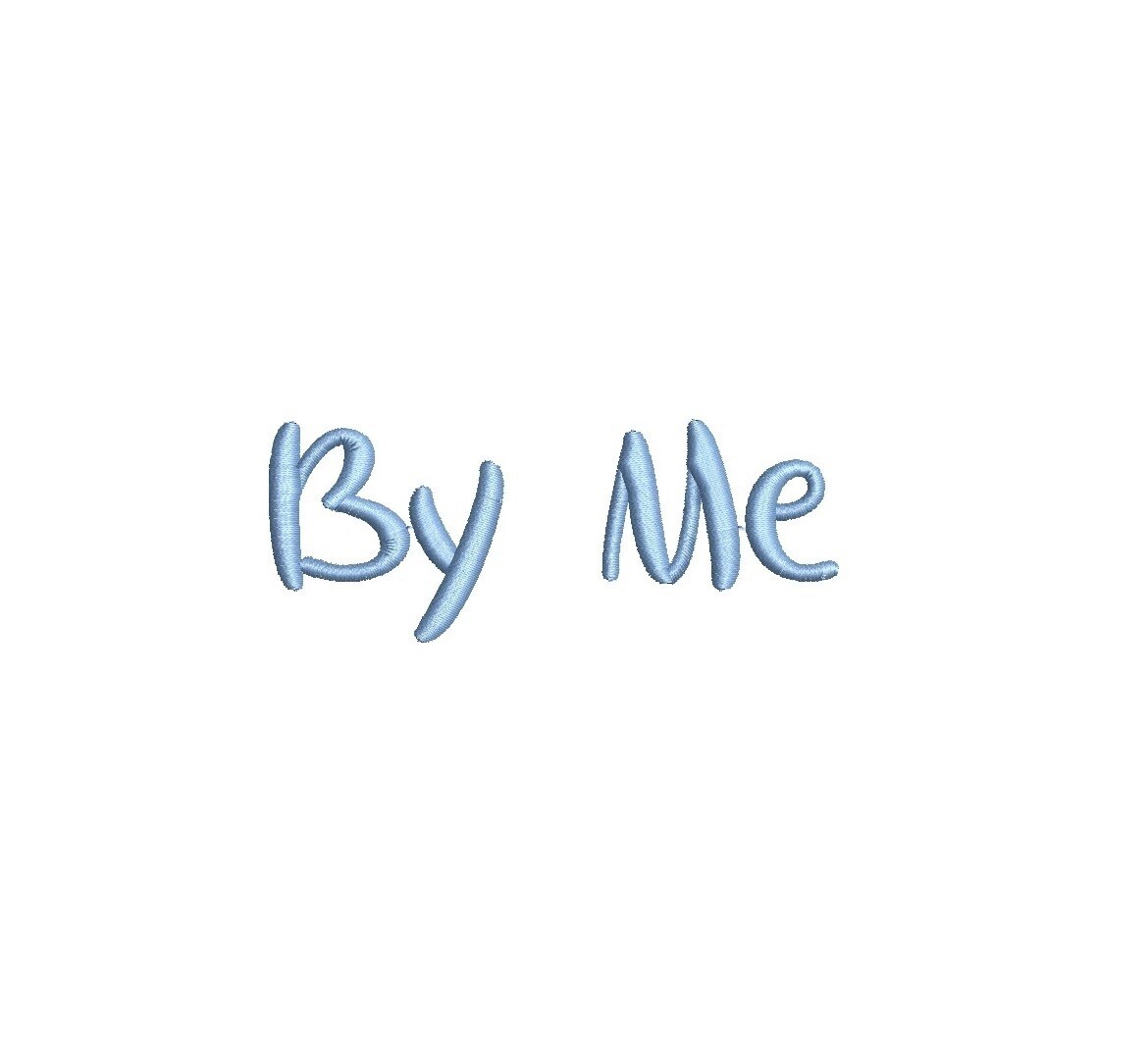
Discover the perfect balance of elegance and versatility with By Me Regular ESA font. This captivating typeface is a seamless fit for your design projects, ensuring compatibility with Wilcom Studio e4.5.6 and Hatch 3 versions and above. Crafted with meticulous precision, its graceful letterforms and balanced curves add a touch of sophistication to any creation. Elevate your designs with By Me Regular ESA's charm, ideal for logos, invitations, branding, and more. Unleash your creativity and infuse your projects with timeless beauty using this font, perfectly tailored for Wilcom Studio e4.5.6 and Hatch 3 versions and beyond.